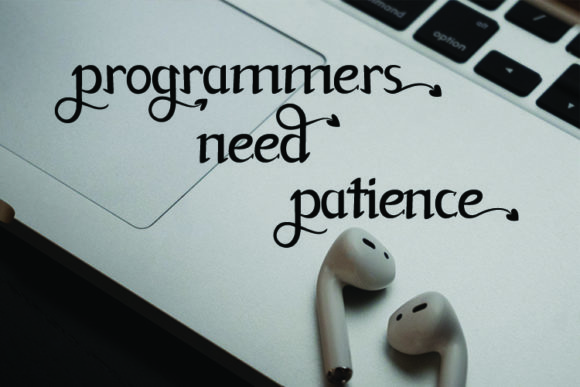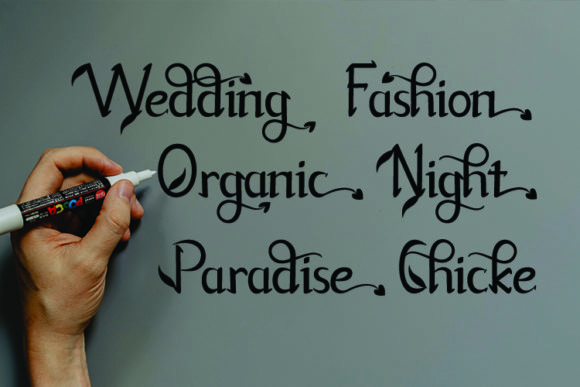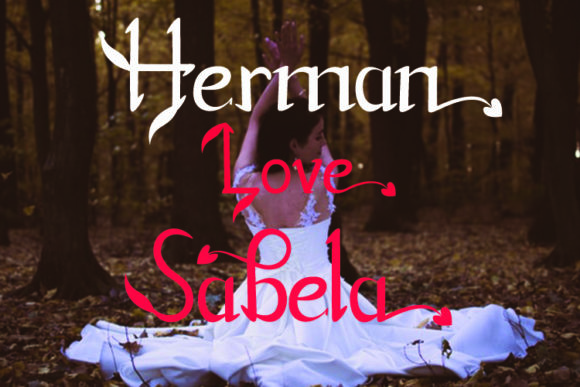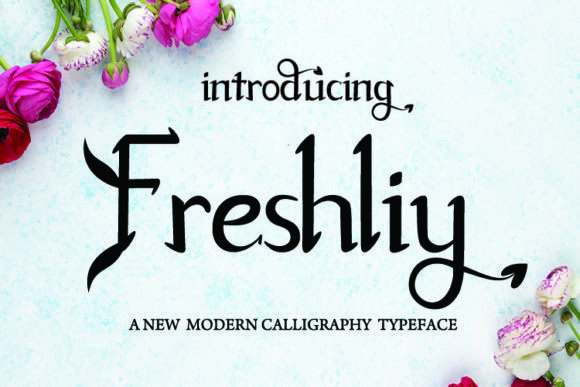
Introduction to Freshliy Font
Freshliy is an elegant and flowing handwritten font.
It is PUA encoded which means you can access all of the glyphs and swashes with ease It maintains its classy calligraphic influences while feeling contemporary and fresh.